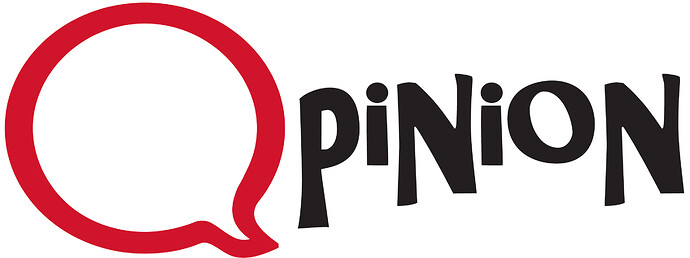
I thought this was an adobe font, but cant find my notes. It was created about 7 years ago. The “O”, callout, is customized.
I think I found your font.
Gilligans Island
(with unmodified i)